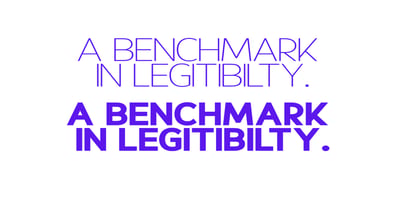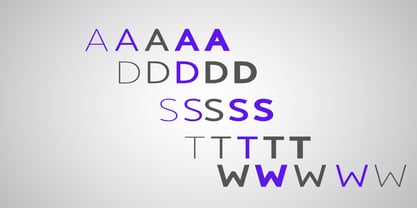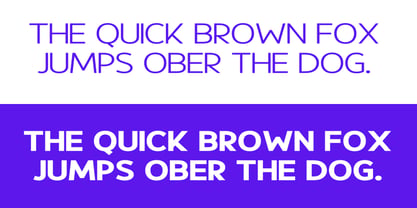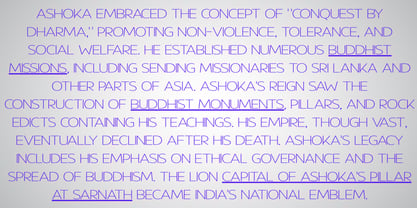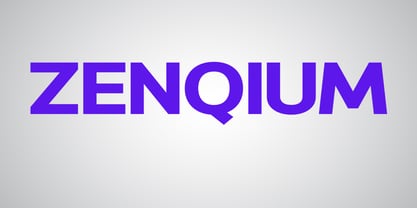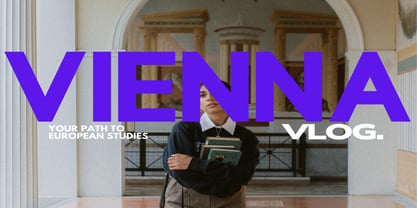
Zenqium
La familia tipográfica Zenqium fue diseñada por Galit Zadok y publicada por Dream Font. Zenqium contiene 5 estilos y opciones de paquete familiar. Más información sobre esta familia
Zenqium is a Sans serif typeface family, characterized by a modern, clean, simple aesthetic yet minimalist and professional look. It features uppercase and lowercase letters, numerals, punctuation, and TrueType features. It also supports multilingual characters, making it perfect for use in various languages. Suitable for various design projects such as Web Design, UI Design, Logos, Business Branding, Marketing graphics, banners, posters, Advertising, Stationery, Corporate identities, Titles, Paragraphs, Digital displays, Esports, Sports, Games, Futuristic Technology concepts, and more.